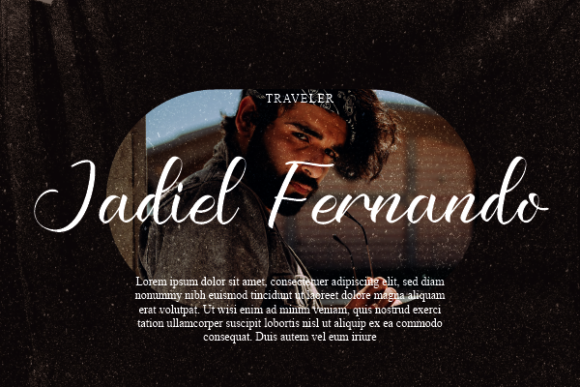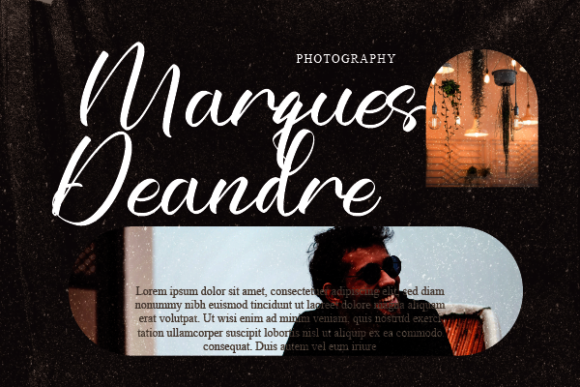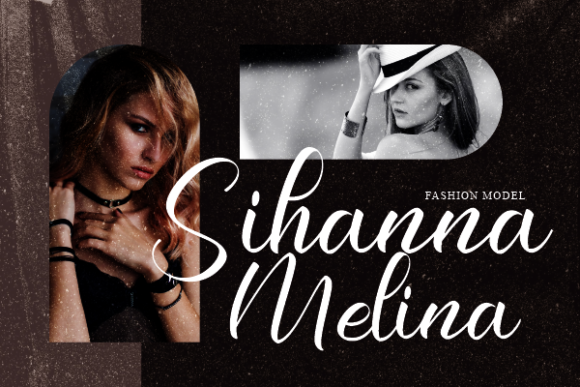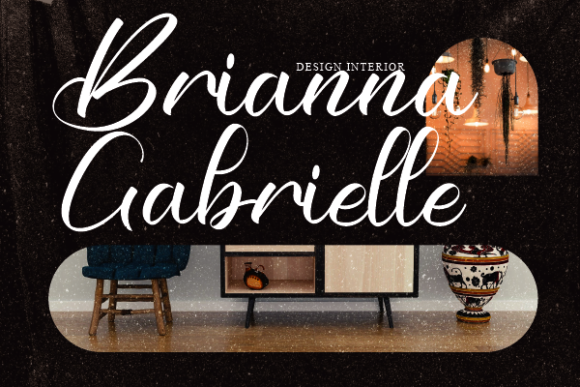
About Chandler Zainab Font
Chandler Zainab is an exquisite and sophisticated script font that effortlessly combines delicacy and fashion to elevate your design projects. With its graceful and flowing letterforms, this font serves as the perfect choice for a wide array of creative ventures, including logos, branding initiatives, t-shirt printing, and various other forms of creative merchandise.
The meticulously designed characters of Chandler Zainab imbue a sense of uniqueness and elegance into your designs. Whether you’re working on establishing a high-end brand identity, crafting a captivating logo, or designing trendy t-shirt graphics, this font adds a touch of refinement and modernity that sets your projects apart.
Chandler Zainab’s versatility ensures it shines across a multitude of contexts, ensuring that your designs make a bold statement both in print and digital mediums. Its delicate strokes and well-proportioned forms create a harmonious visual appeal that captivates the viewer’s attention.
Incorporating Chandler Zainab into your projects allows you to convey a sense of sophistication and contemporary allure. Whether it’s enhancing your brand’s visual identity, creating compelling promotional materials, or producing stunning merchandise designs, this font provides you with the tools to craft a cohesive and visually striking presentation.
Furthermore, Chandler Zainab’s PUA encoding enhances its flexibility, granting you access to an extensive array of glyphs and special characters. This feature empowers you to explore endless design possibilities and create truly unique and personalized pieces of artwork.
In essence, Chandler Zainab isn’t just a font – it’s a powerful design asset that enables you to infuse your creations with elegance and charm. Whether your goal is to establish a memorable brand image, design captivating t-shirt prints, or embark on any creative endeavor, this font ensures that your work radiates a distinct sophistication that leaves a lasting impact on your audience.